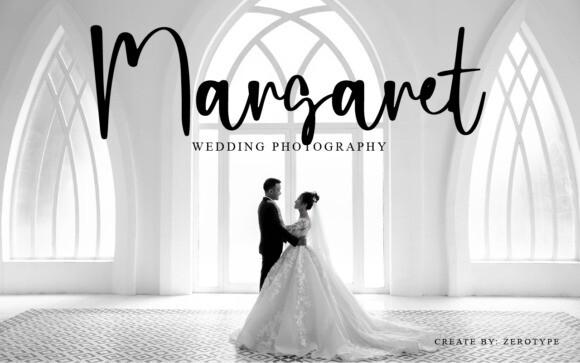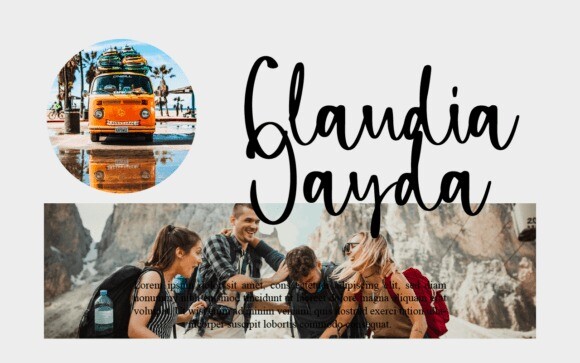
Kaydence Margaret Font
This script font is a true masterpiece, with its intricate swirls and flourishes that lend an air of elegance and sophistication to any project. Its flowing lines and graceful curves are a testament to the artistry and craftsmanship that went into its creation, making it a stunning choice for any design.